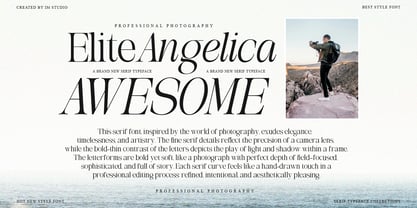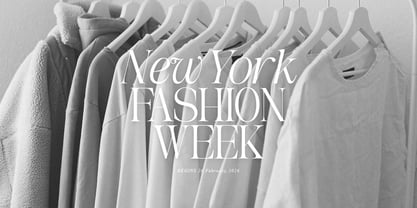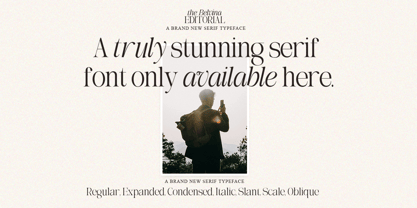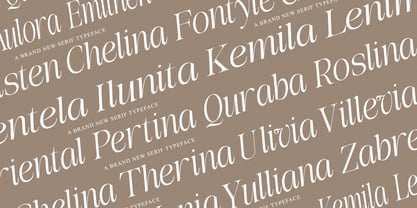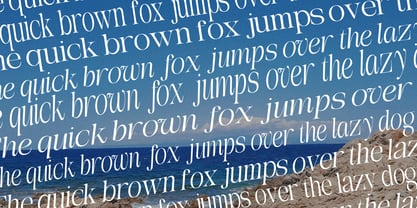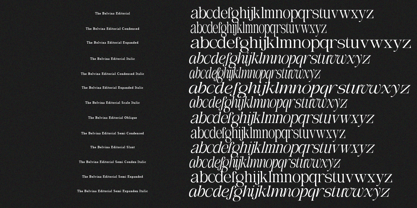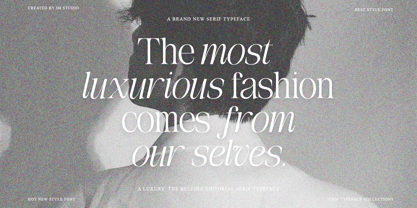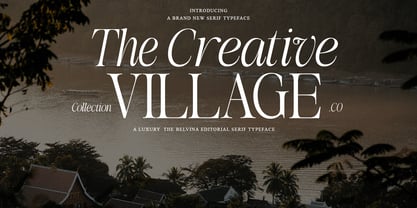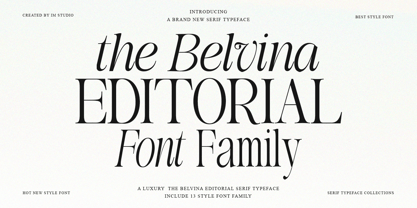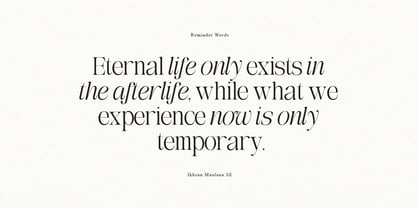
The Belvina Editorial
by IM Studio
The The Belvina Editorial Font Family was designed by Ikhsan Maulana and published by IM Studio. The Belvina Editorial contains 13 styles and family package options. More about this family
The Belvina Editorial is more than just a typeface — it’s a complete high-end typography system. With 13 beautifully crafted styles, this versatile serif font family adapts seamlessly to branding, fashion editorials, luxury packaging, magazine layouts, and elegant logo design. Every letterform is carefully shaped to deliver a polished, upscale typographic presence that feels both modern and icon From bold statement headlines to delicate, artistic compositions, The Belvina Editorial creates stunning visual hierarchy while maintaining a cohesive, premium
Let me introduce myself, my name is Ikhsan Maulana. I am the owner of IM Studio Foundry which was founded in 2018. IM Studio is a font design studio based in Indonesia. Currently, I am fully pursuing my new passion. I fell in love with the world of writing, drawing letters, and love all forms of creativity. I love exploring and seeing how typography reflects a brand's personality. I want to continue to develop my creativity and use my passion to provide greater benefits for myself and the designer community. I created my first font in mid-2018. Since then, I have transformed my freelance business into Type Foundry. Founding IM Studio to help designers choose their projects.Thank you. Ikhsan Maulana